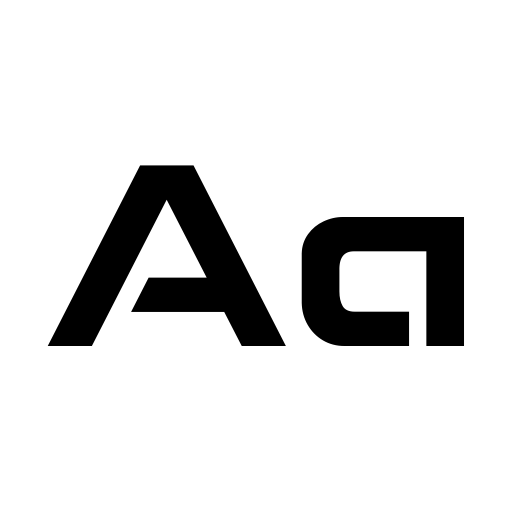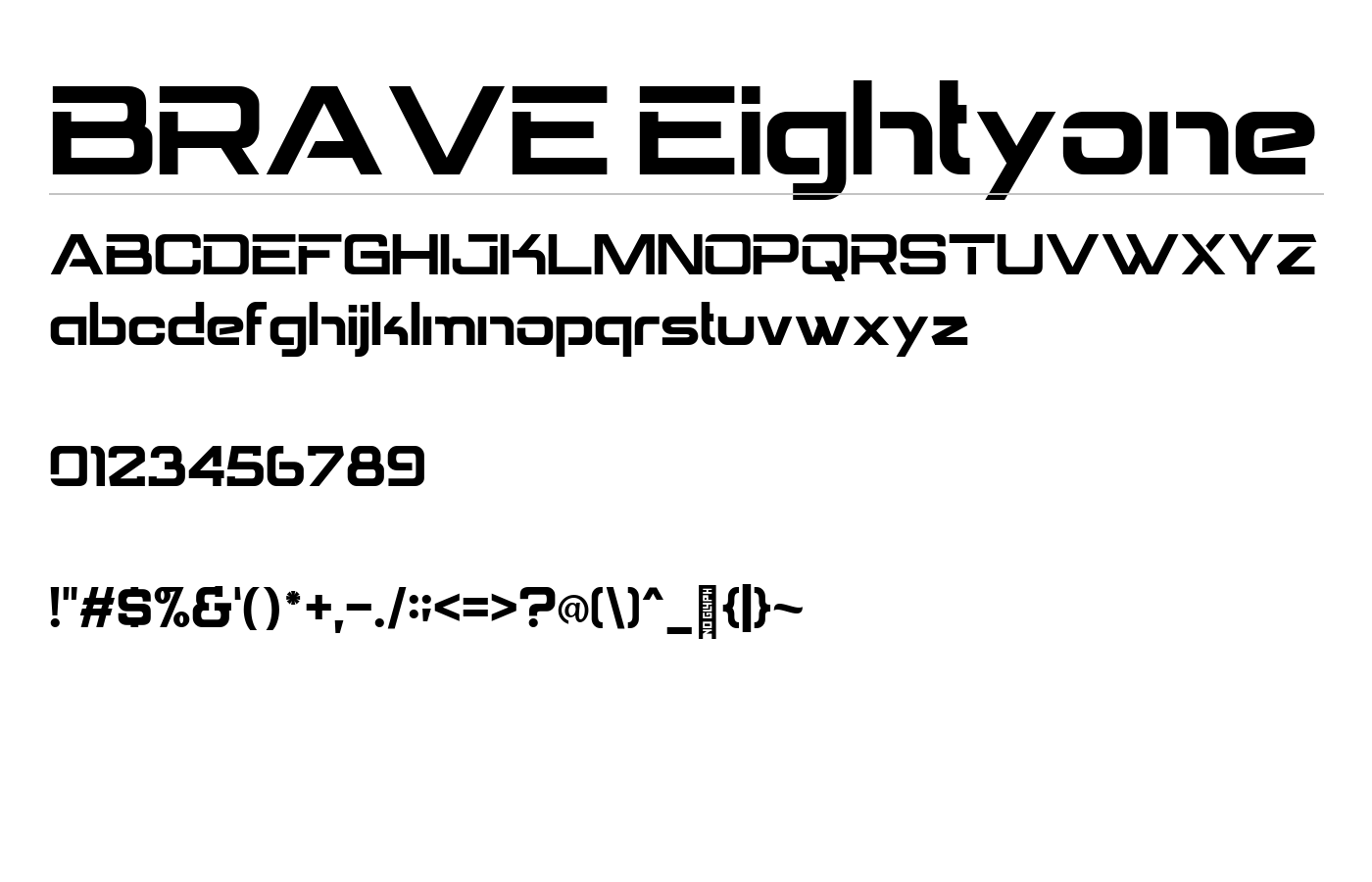
BRAVE Eightyone is a bold, modern sans serif font with a futuristic, geometric style characterized by clean lines and unique angular cuts. Its strong weight, uniform stroke contrast, and slightly condensed width make it perfect for eye-catching headlines, logos, and branding in tech, sports, or innovative industries. This font conveys a sleek, confident, and contemporary personality that stands out in digital and print design.
BRAVE Eightyone Font
About BRAVE Eightyone Font
| Font family | BRAVE Eightyone Font |
| Designer | Alit Suarnegara |